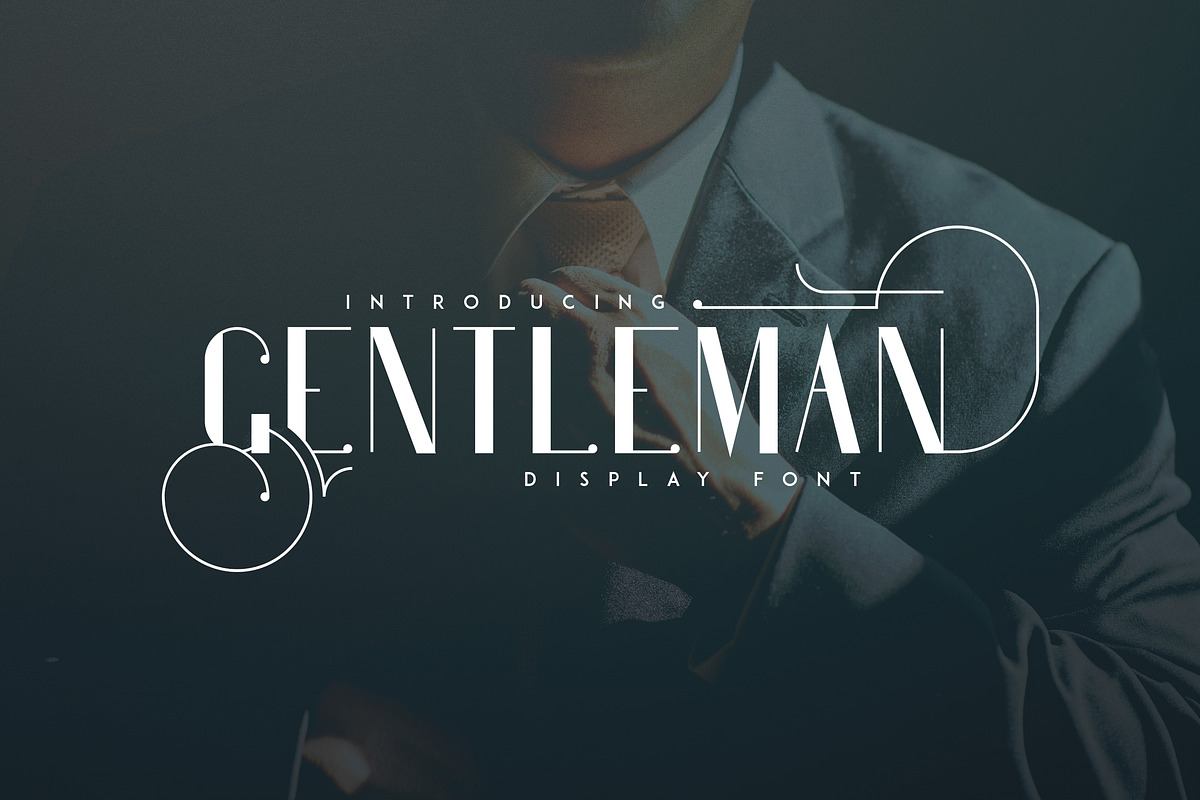
Gentleman Font + 10 Logos Free Download is a sleek and classy typeface bundle designed for creators who want to add a sophisticated edge to their branding. Please note: you must purchase this font for commercial use, but you can test it through a free download. The bundle includes a modern serif font along with 10 professionally designed logo templates, making it perfect for personal branding, luxury products, fashion labels, and high-end presentations.
With its refined lines and timeless character, the Gentleman font brings elegance and clarity to any layout. The included logos offer a head start on visual identity projects, saving time while maintaining top-tier quality. Whether you’re working on print, digital, or social content, Gentleman Font + 10 Logos Free Download ensures your designs feel polished and professional. Compatible with tools like Adobe Illustrator and Canva, this bundle is a must-have for designers looking to elevate their work.